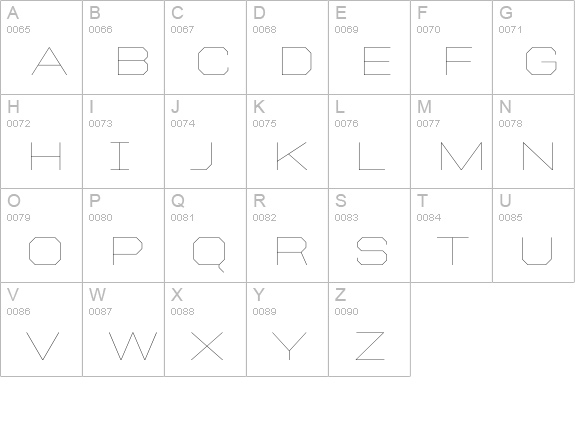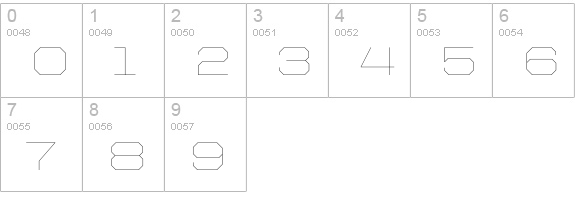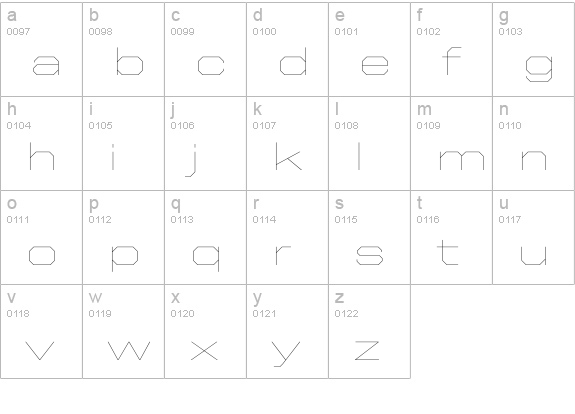
United Sans Ext Thin Font Details
United Sans Ext Thin is a delicate, low-contrast variant in the United typeface family \xE2\x80\x94 well suited to fashion editorial, minimal branding, and high-contrast display.
United Sans Ext Thin is a sleek and elegant typeface that effortlessly embodies modern minimalism. With its thin strokes and clean lines, this font exudes a sense of sophistication and refinement. Perfect for projects that require a touch of understated elegance, United Sans Ext Thin adds a touch of class to any design. What sets United Sans Ext Thin apart is that it is not only visually stunning but also freely available to download. This means that you can enhance your creative projects without having to worry about any additional costs. Whether you are working on a personal project or a professional assignment, United Sans Ext Thin is the ideal choice for those seeking a high-quality font that won't break the bank. To access this incredible font, simply head over to FontsMarket.com. There, you will find a vast collection of fonts, including United Sans Ext Thin, all available for free download. FontsMarket.com is a trusted source for fonts, providing designers and creatives with a wide range of options to choose from. So why wait? Make United Sans Ext Thin a part of your font library today and elevate your designs with its timeless beauty and affordability.